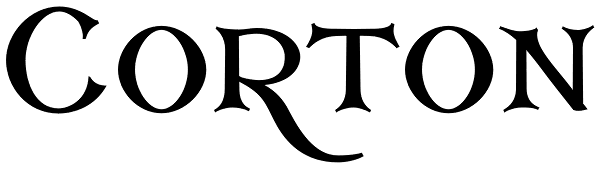
Corton
Corton was inspired by the traditional lettering on a gravestone in an English village. While that might sound a rather solemn beginning, Corton has wonderfully lively air, with distinctive lively serifs and beautifully swashed downstrokes. Eight...